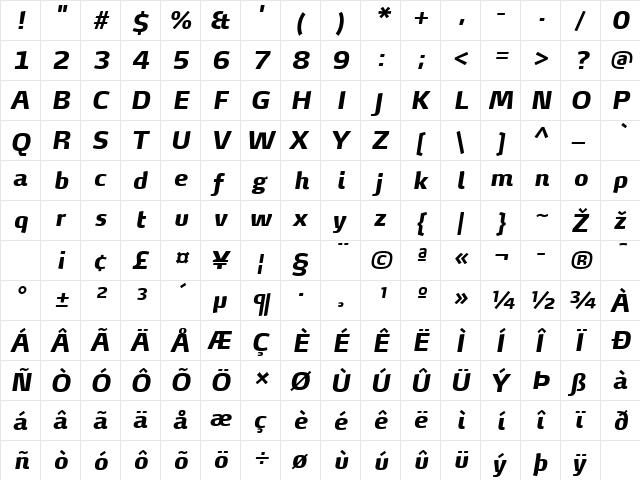
MaxDemiSerifTF-ExtraBoldIta Regular Font Preview
MaxDemiSerifTF-ExtraBoldIta Regular
MaxDemiSerifTF-ExtraBoldIta Regular Font Details
| Foundry | FontShop International |
| Designer | Morten Rostgaard Olsen |
Design Context for MaxDemiSerifTF-ExtraBoldIta Typeface
MaxDemiSerifTF-ExtraBoldIta carries the refined structure of traditional serif typography, with bracketed terminals and considered proportions that communicate credibility and craft. The heavy weight commands attention and anchors typographic hierarchies.